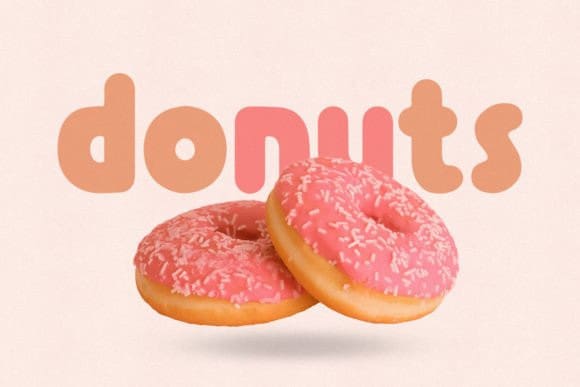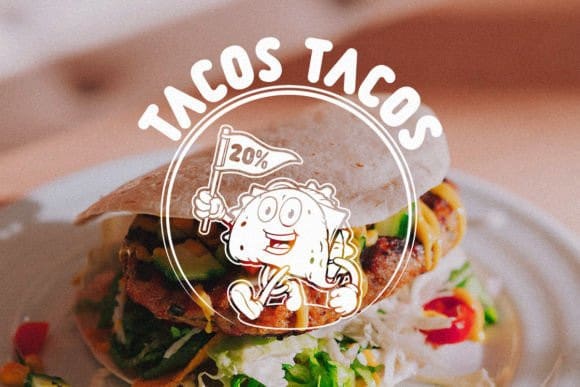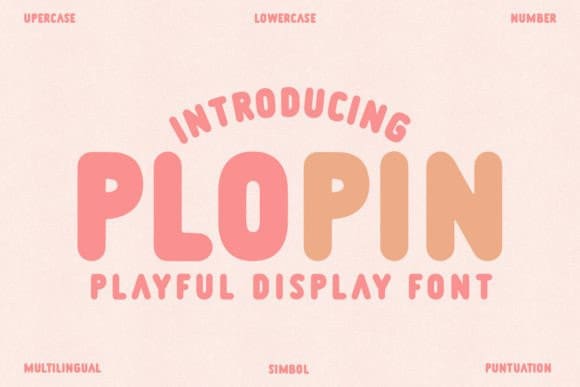
Plopin Playful Font
Plopin Playful Font is a sweet and playful display font with nicely rounded and friendly characters. This font is great for logos, posters, clothing, branding, party invitations, and many other cool design projeects.